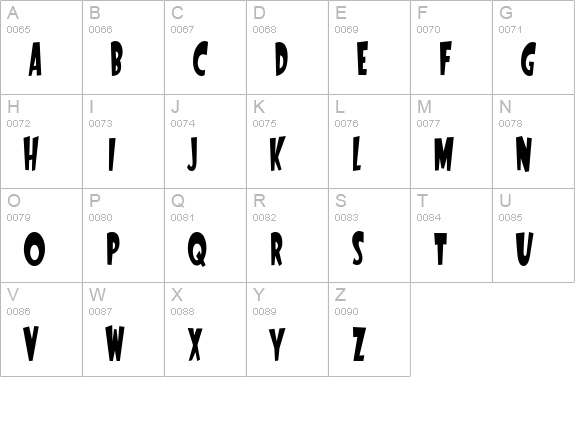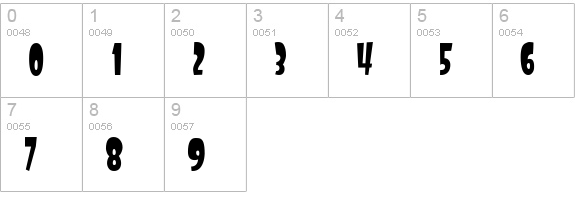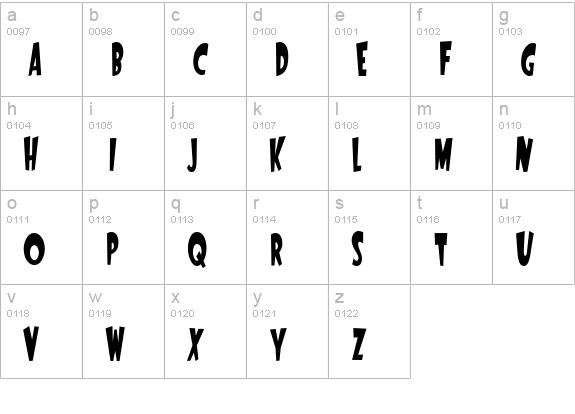
StartlingFont Font Details
StartlingFont is a captivating and eye-catching font that will leave a lasting impression on any design project. With its bold and distinctive letterforms, this font is perfect for titles, headlines, and logos that demand attention. Featuring a unique combination of sharp angles and elegant curves, StartlingFont brings a touch of modernity and sophistication to your designs. Its sleek and sleek design ensures legibility across various mediums, from print to digital platforms. One of the best things about StartlingFont is that it is completely free to download. Yes, you read that right! This incredible font is freely available for download at FontsMarket.com. Whether you're a professional designer or a passionate hobbyist, you can now enjoy the benefits of this stunning font without any cost. Created with meticulous attention to detail by a team of talented typographers, StartlingFont offers a wide range of weights and styles to suit your creative needs. From thin and delicate to bold and impactful, this font allows you to experiment and create truly unique designs. With StartlingFont in your design arsenal, you can effortlessly create captivating posters, striking advertisements, memorable branding materials, and so much more. Its versatility and aesthetic appeal make it a must-have font for designers looking to make a statement. So why wait? Head over to FontsMarket.com and download StartlingFont for free today. Elevate your designs and captivate your audience with this remarkable font.